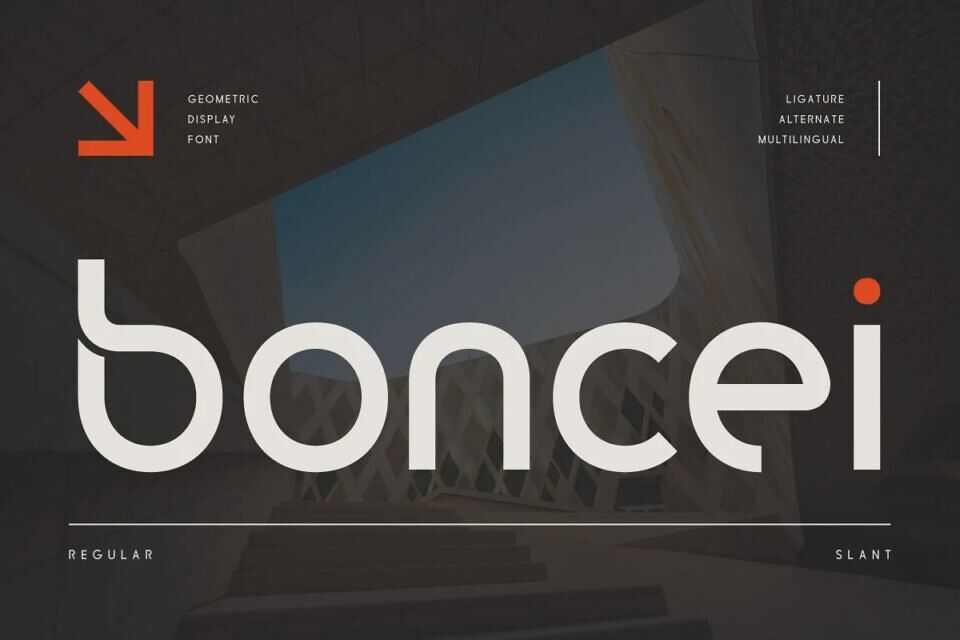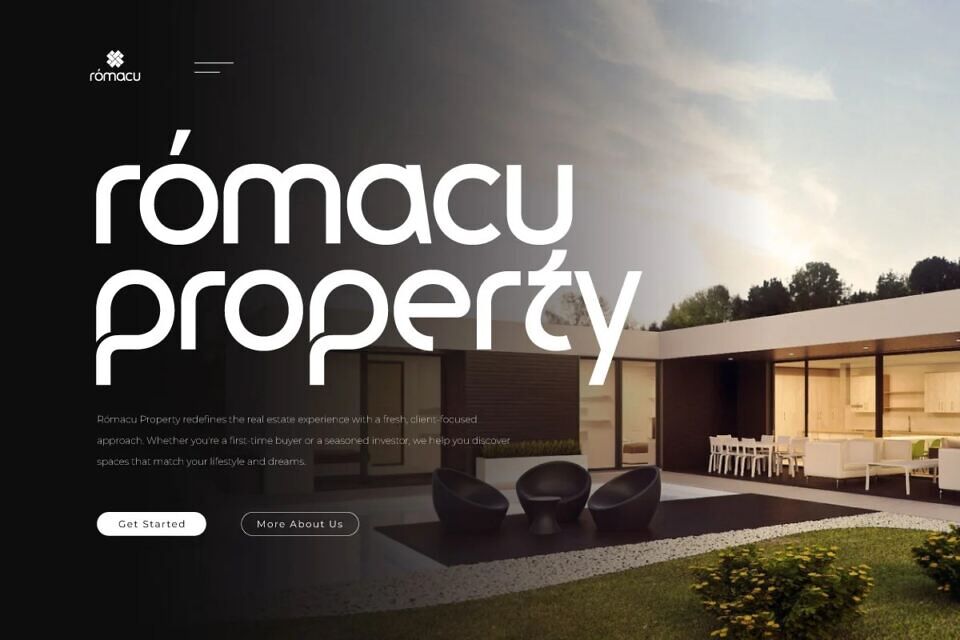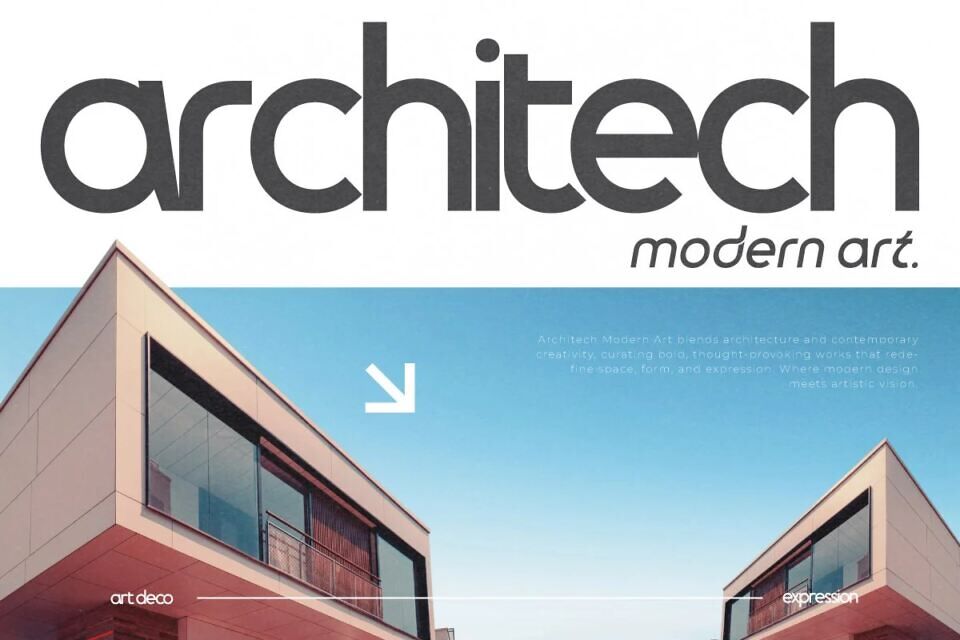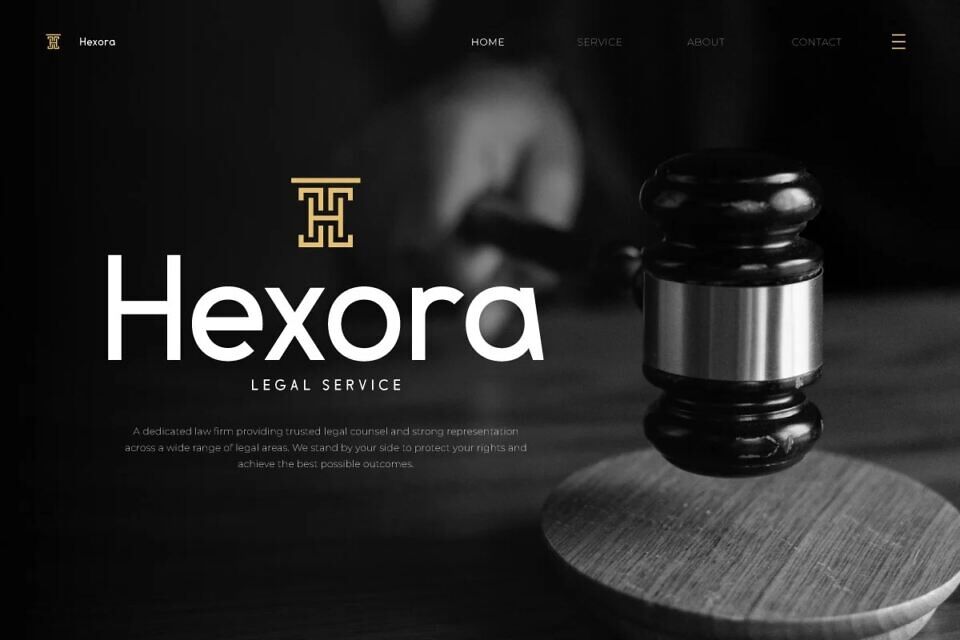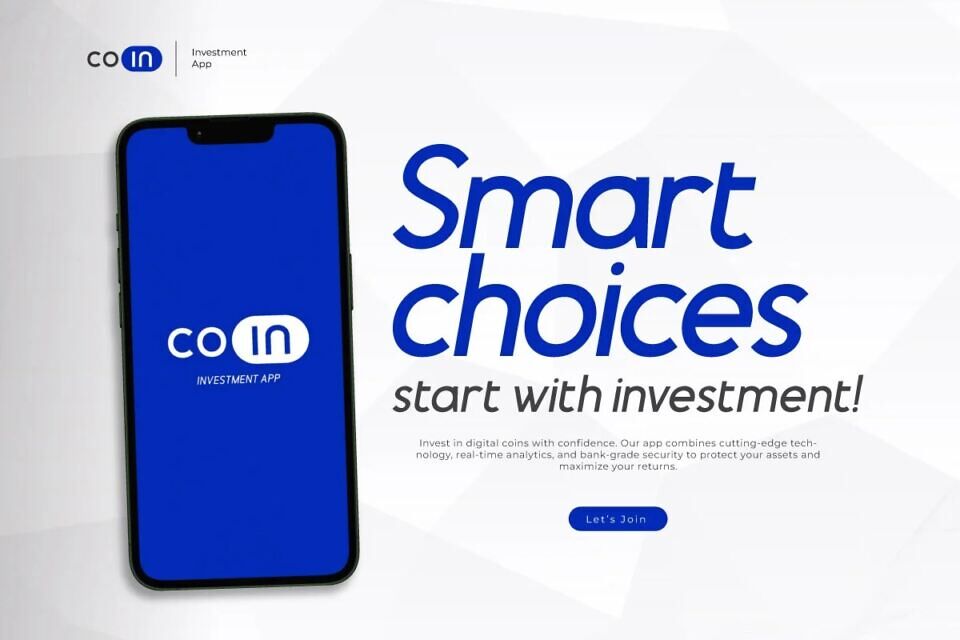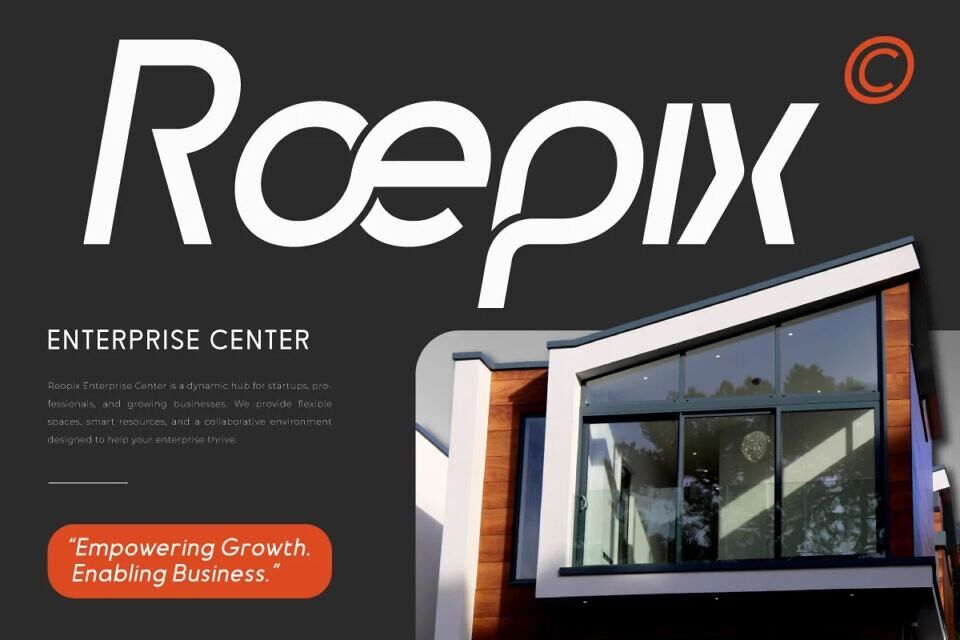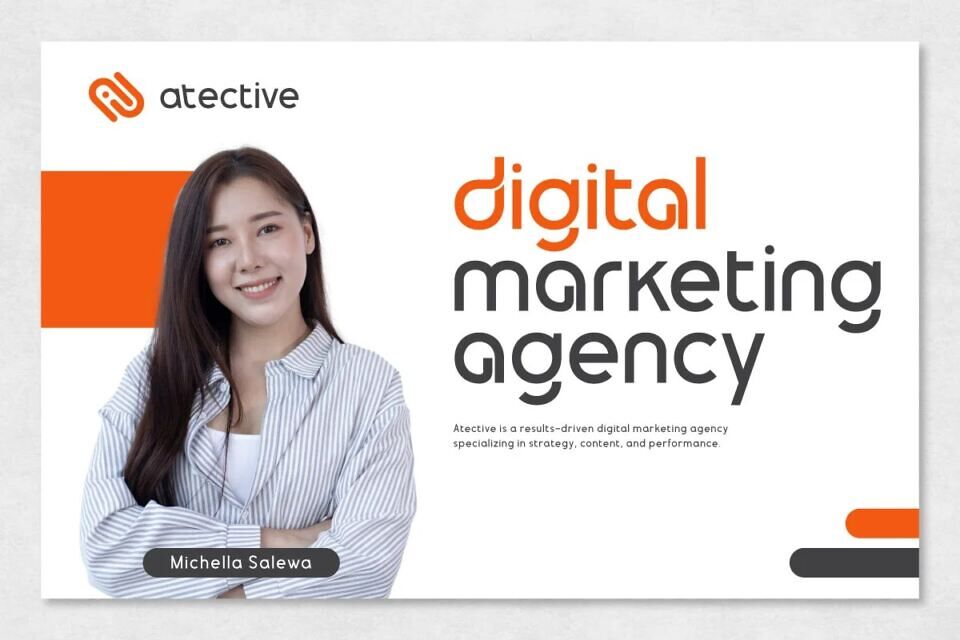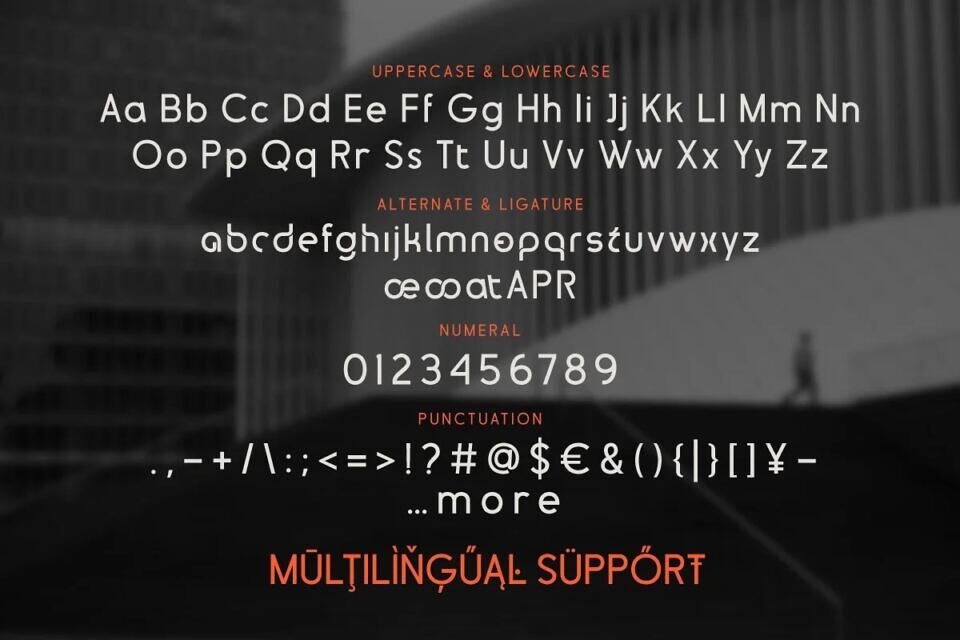
Boncei Font
Boncei is a sleek and modern geometric font crafted specifically for corporate branding, logo design, and visual identity systems. Designed with precision and balance, Boncei offers clean lines and structured shapes that exude professionalism and contemporary appeal.
Its minimalist and versatile letterforms make it a strong choice for technology companies, startups, financial firms, or any brand that wants to communicate innovation, reliability, and modernity. Each character is harmonized for excellent legibility, making it suitable for both print and digital applications—from business cards to web headers.
If you’re looking for a font that blends design clarity with geometric elegance, Boncei delivers a powerful visual presence that enhances your brand’s credibility and style.